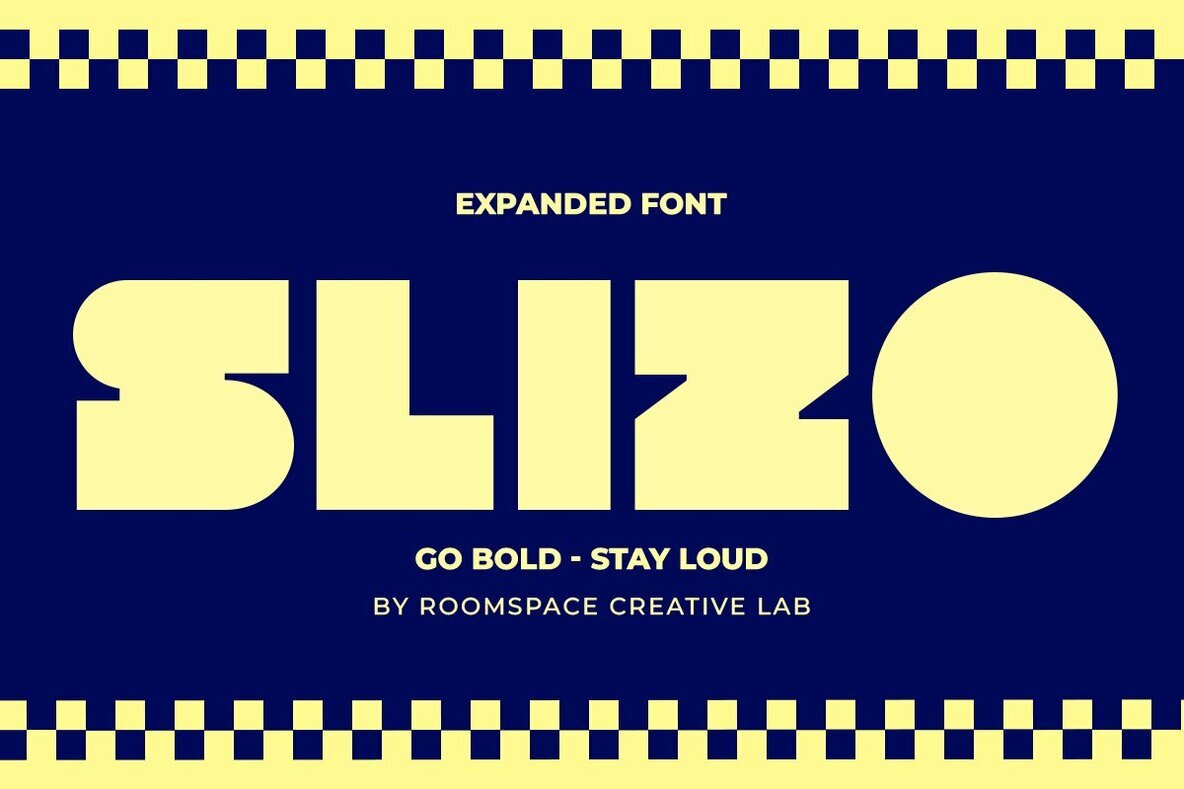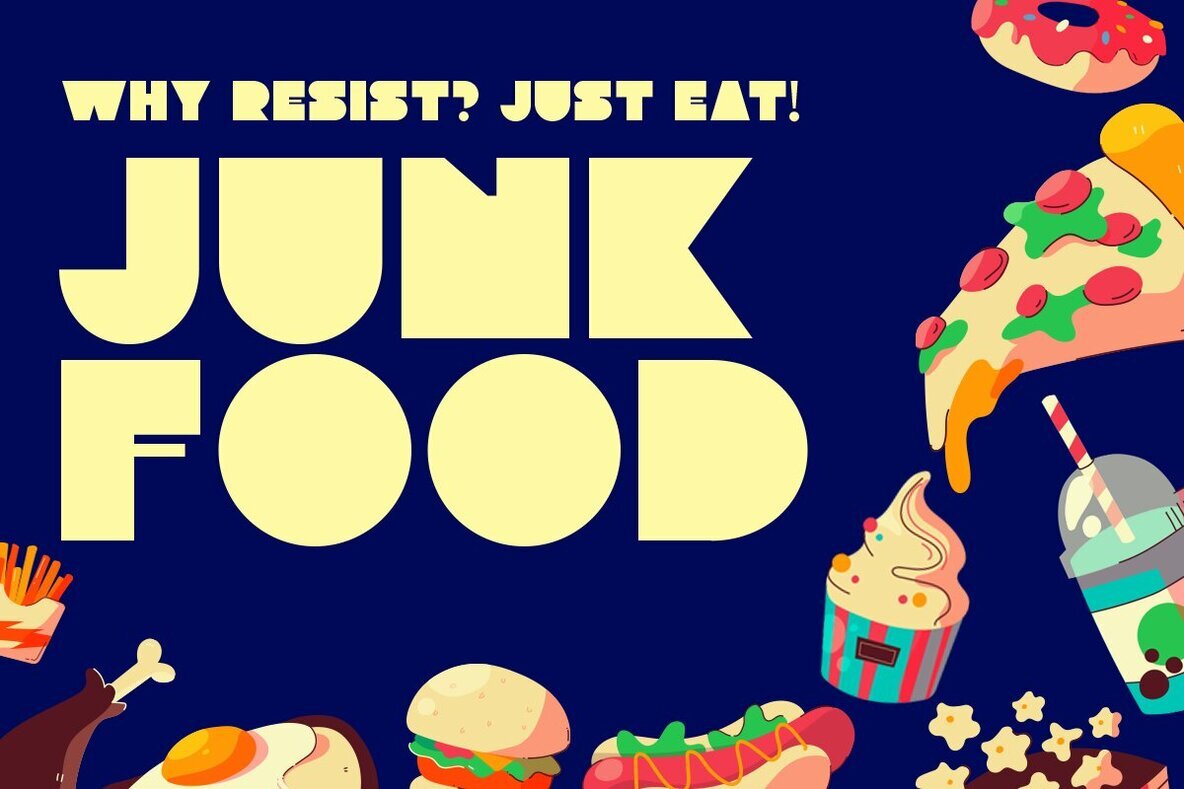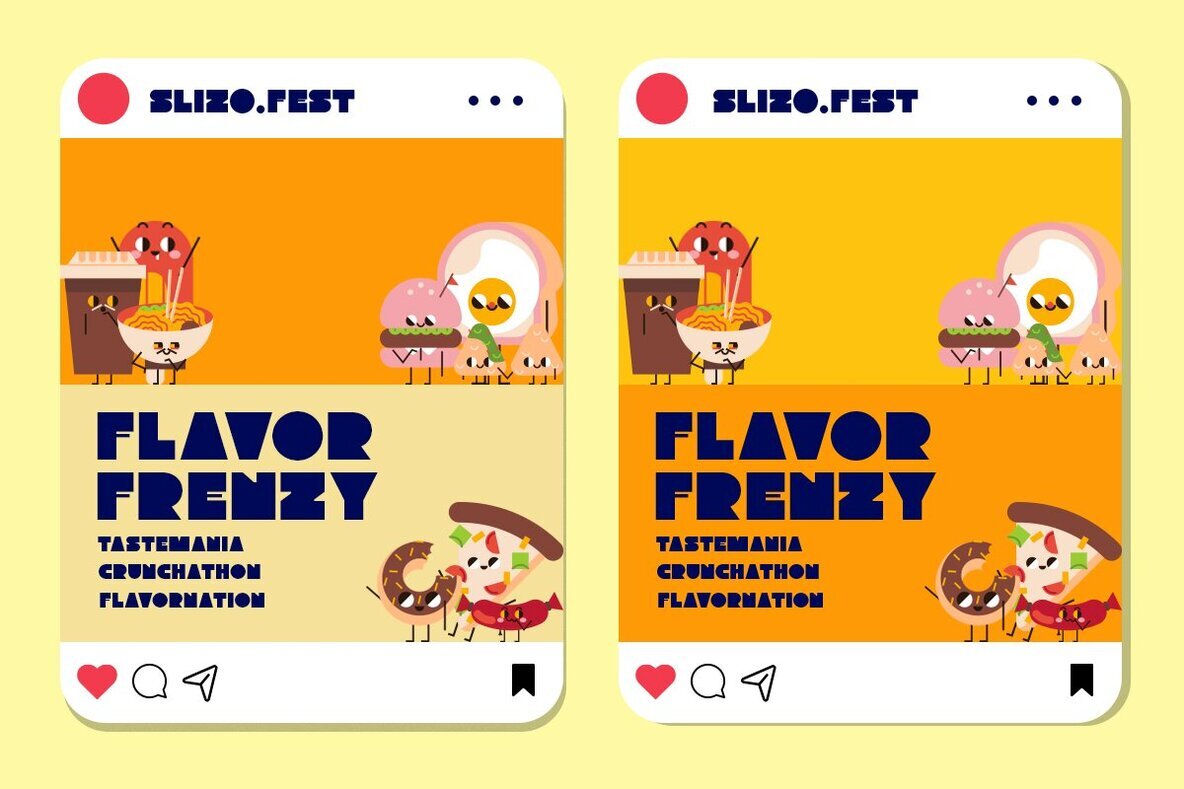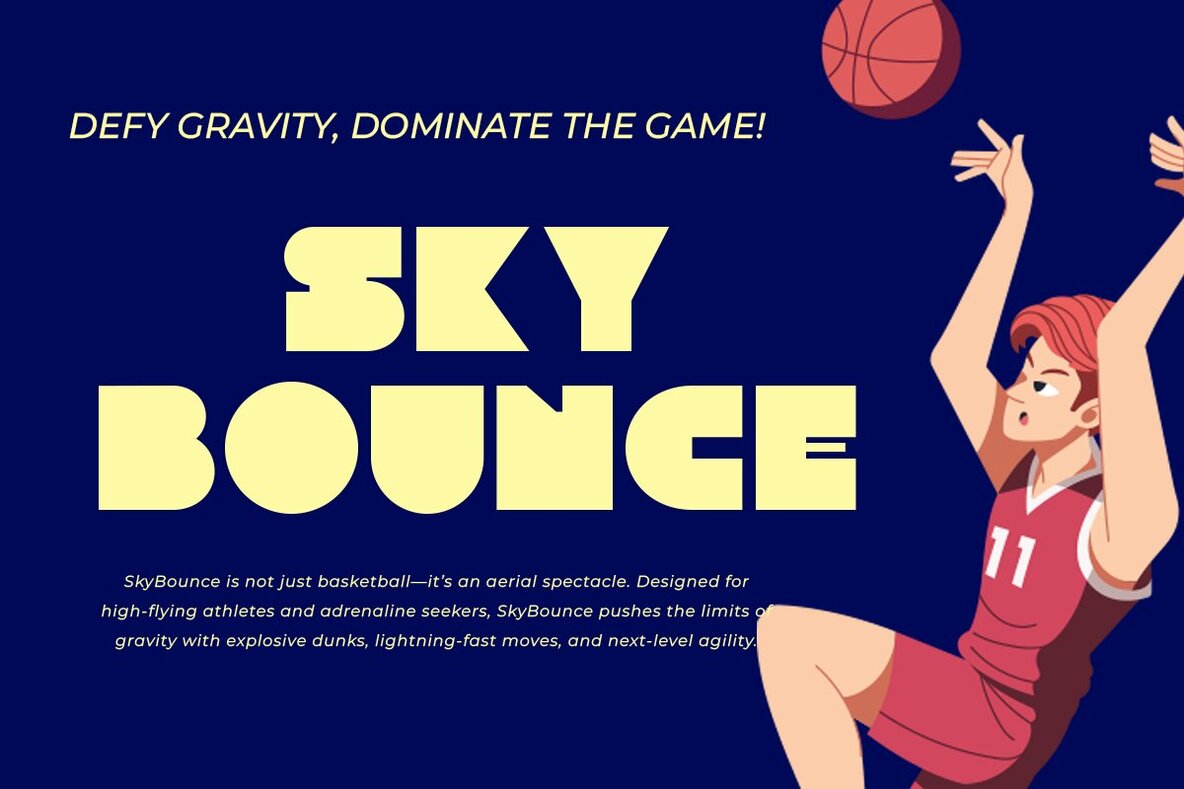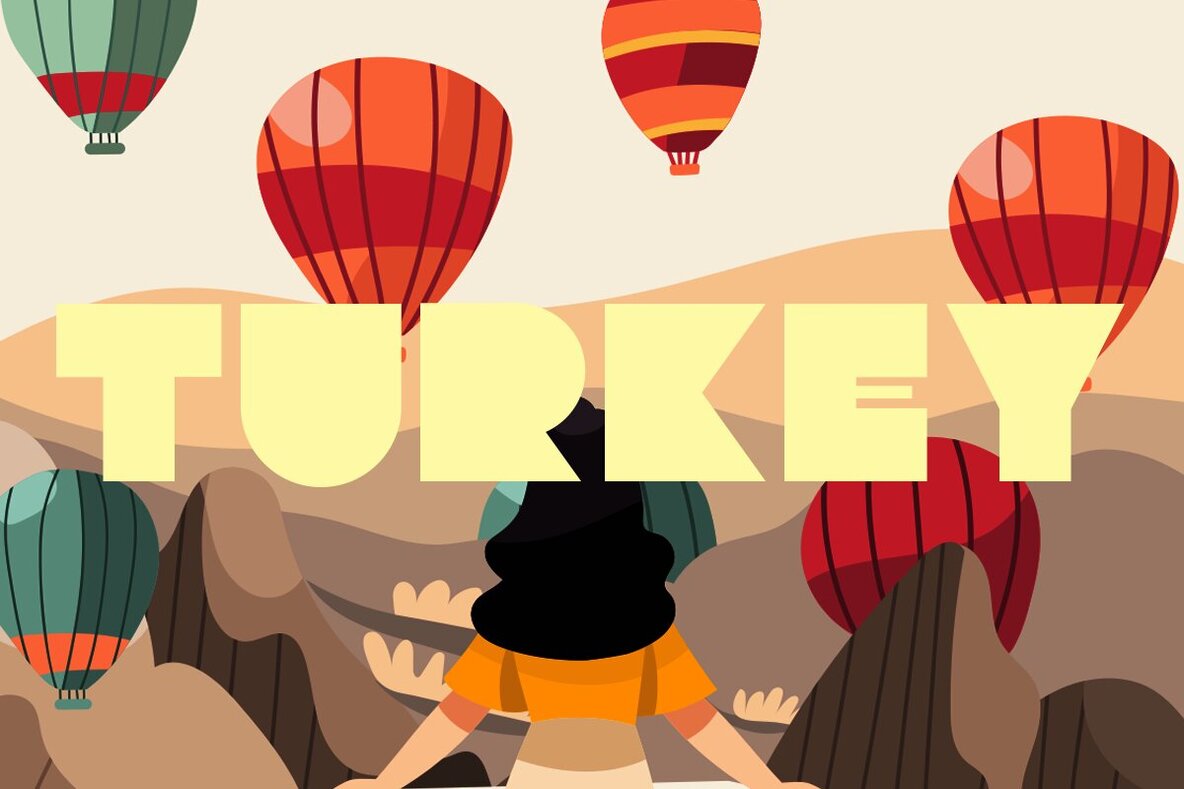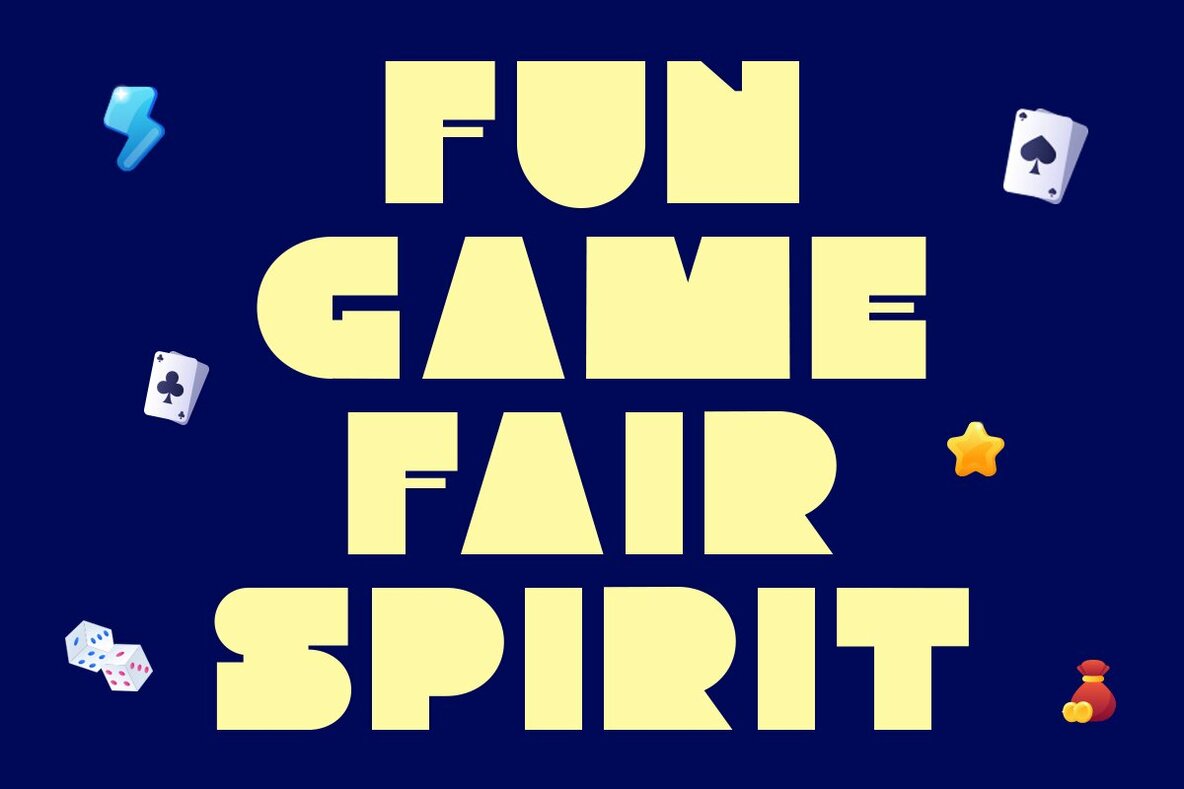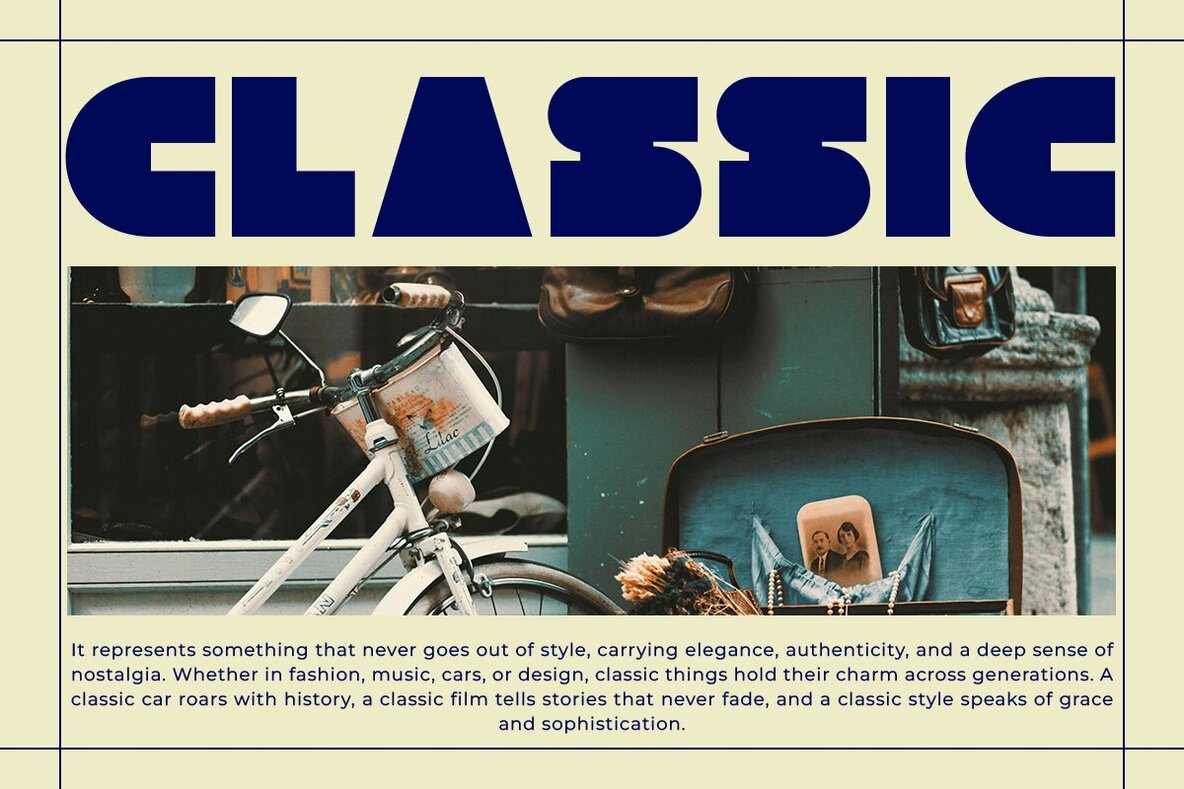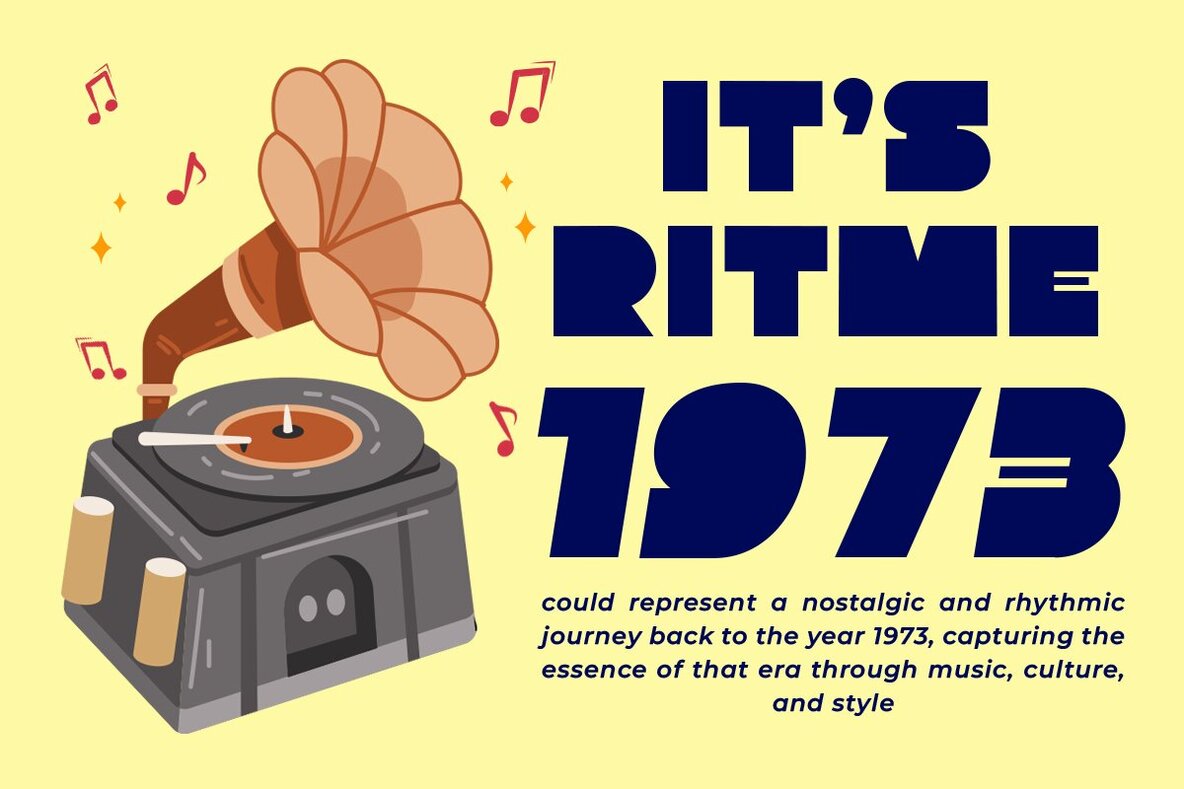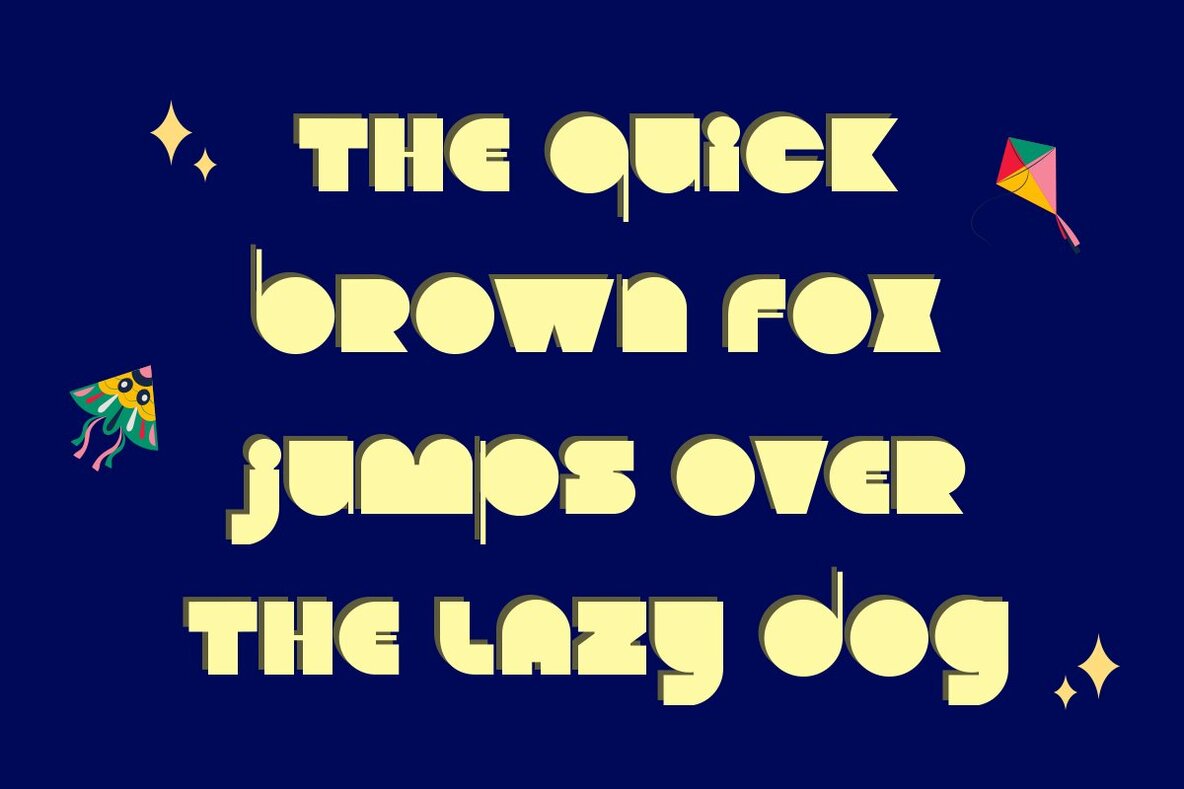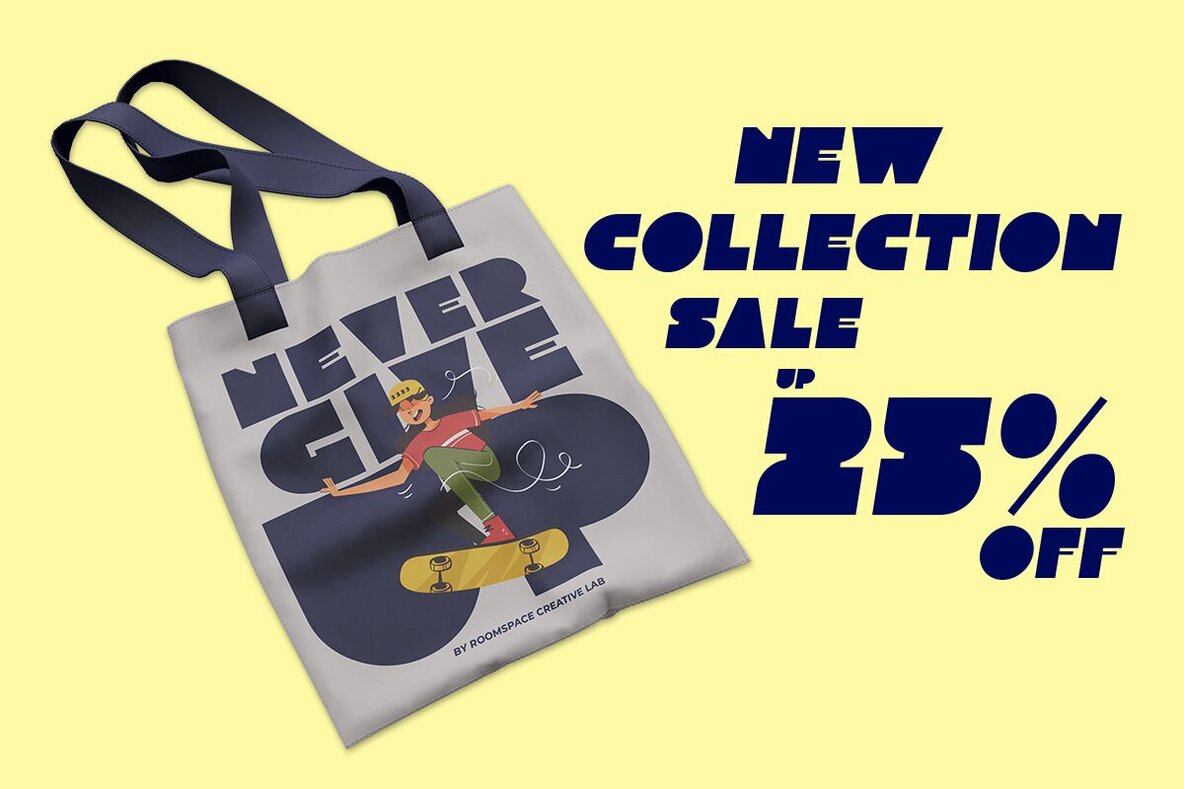
Slizo Font
Slizo is a bold expanded display font defined by its striking geometric style, designed to make your projects unmissable. Ideal for a range of creative projects, Slizo shines in branding, posters, album covers, and sports designs. The font's strong and wide letterforms offer a powerful modern aesthetic, perfectly suited for streetwear branding, tech visuals, or any design in need of bold typography.Slizo: Bold Expanded Display Font